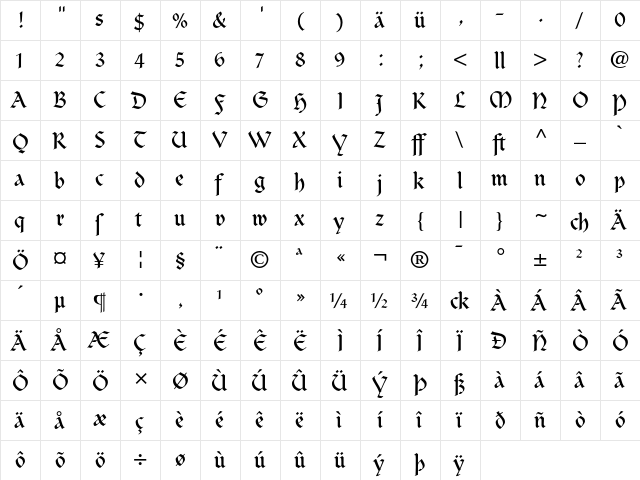
Clairvaux Dfr
Design Context for Clairvaux Typeface
Clairvaux takes a measured approach to typography — its balanced proportions and neutral character make it a reliable workhorse for both digital and print work.